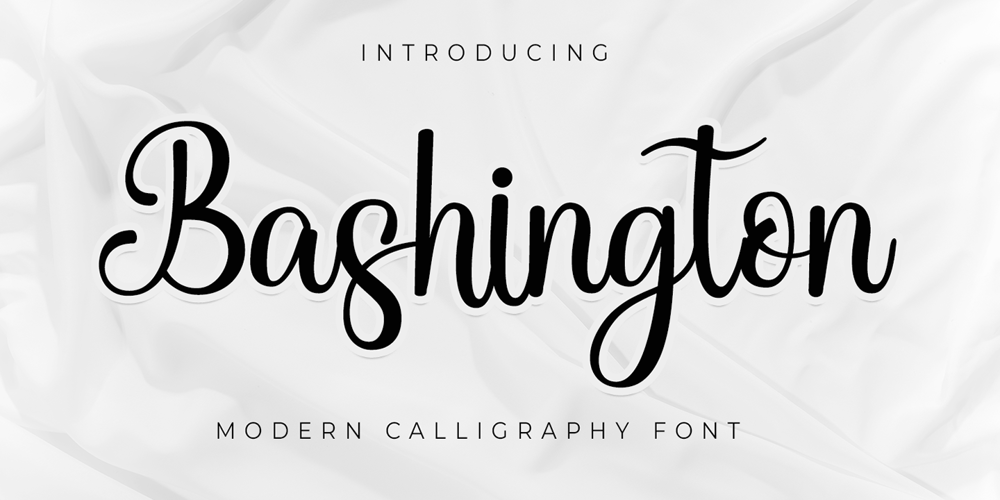
Bashington
Bashington font
Bashington Font Family was designed by Anton Cahyono and published by Motokiwo. Bashington contains 1 styles and family package options. Cute and sweet script font, this is Bashington. The expression of a sweet personality delightfully presented by Bashington, lets you transform type into an exciting and beautiful piece of work. It works perfectly for weddings, food, e-commerce brands, trend blogs, boutiques or any business that wants to appear upscale and sweet.Features: Uppercase & Lowercase Standard Ligatures Numerals & Punctuations (OpenType Standard) Multilingual characters (AÀÁÂÃÄÅÇEÈÉÊËIÌÍÎÏNÑOØÒÓÔÕÖUÙÜÚÛÝŸÆŒß) PUA Encoded